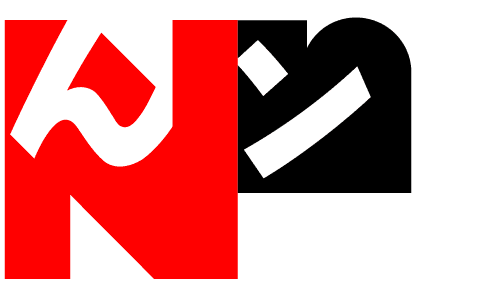
This sample from my ongoing project Alpha-Kana
wishes to show what makes my type design different; my work in Japanese
typography as a European. Aside from using Chinese Kanji characters,
Japan developed two sets of phonetic